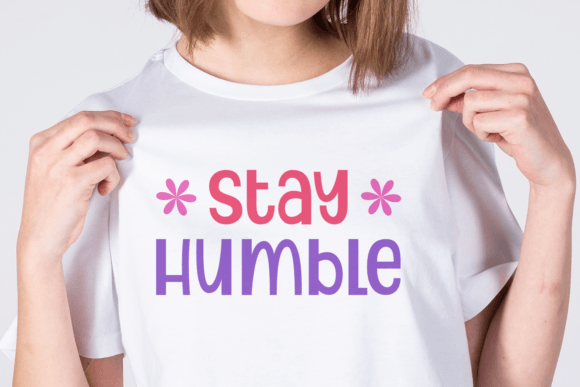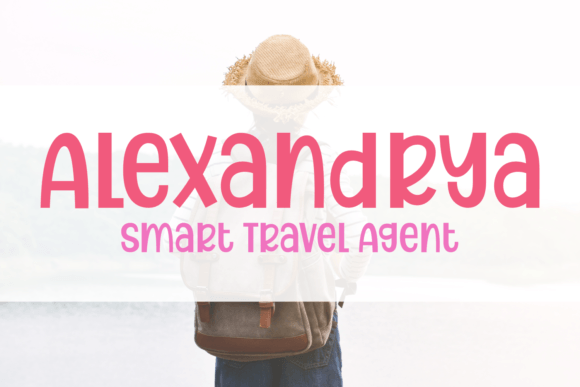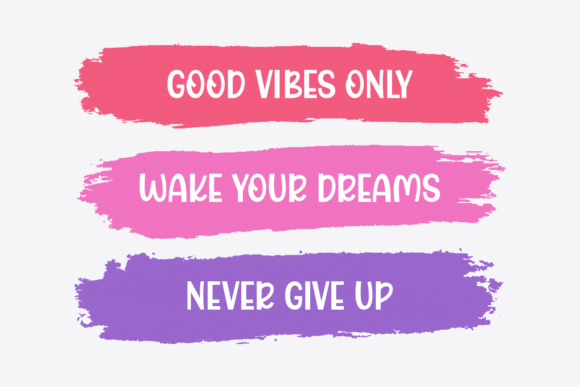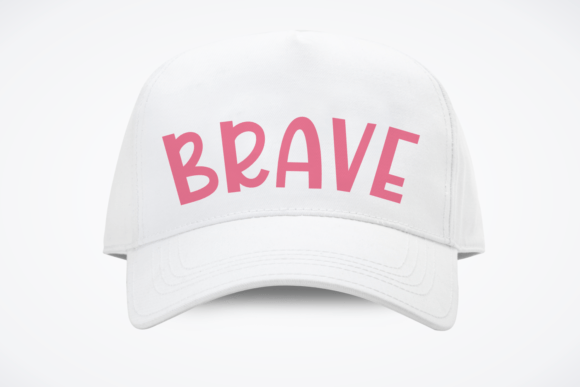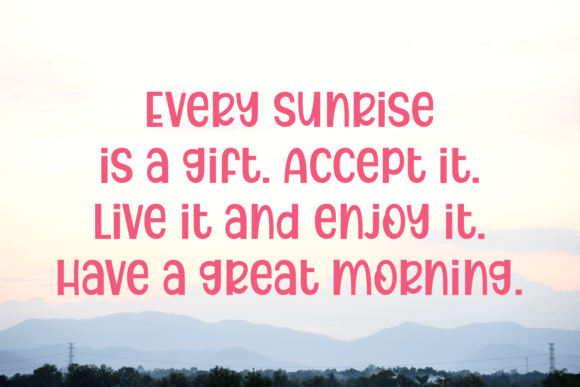
Introduction to Friday Notes Font
Friday Notes is a playful and whimsical handwritten font.
Friday Notes is versatile and works well in a variety of contexts, including greeting cards, childrenโs books, invitations, logos, and posters Its playful style also makes it suitable for party decorations, fun branding, and social media graphics.
Key Features of Friday Notes Font
Why Choose Friday Notes Font?